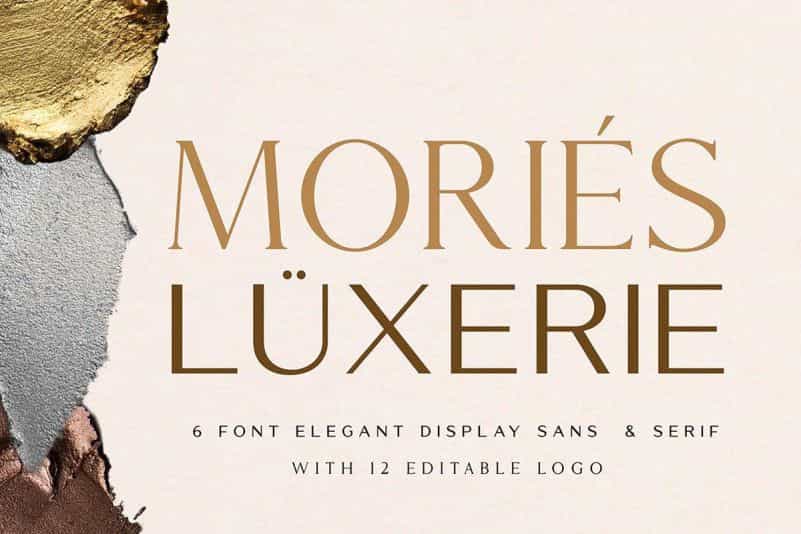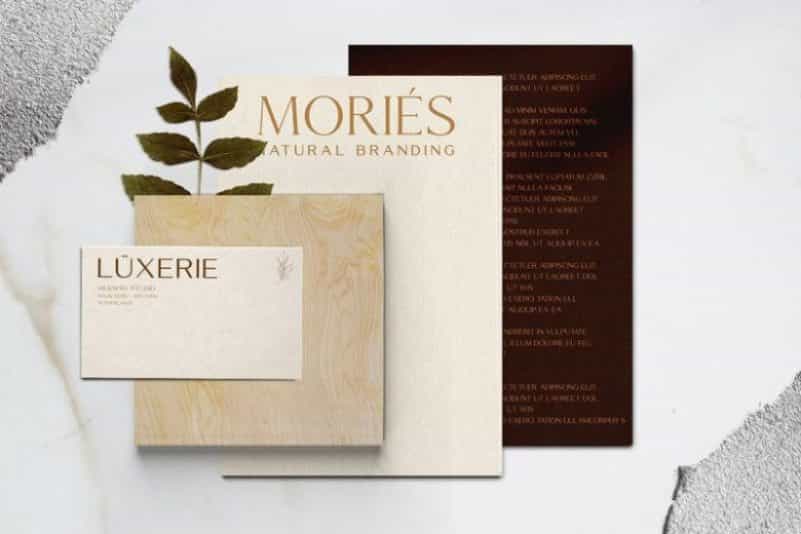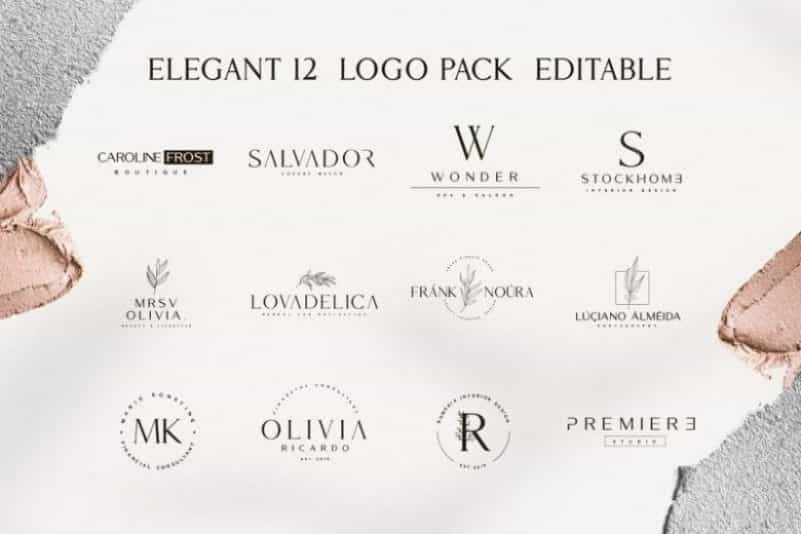
Mories Luxerie Font Duo
Mories Luxerie Sans & Serif Font! Legan font duo with a combination of sans and serif and unique letters to complete the display when you combine it into a logo or brand. It is inspired by the world famous fashion logo, by making it look modern and professional, don’t forget you will get an editable logo bonus that you can change, saving you time.